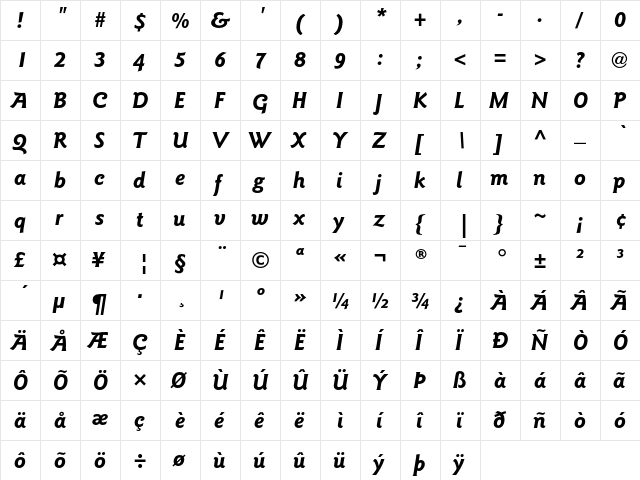
ITC Goudy Sans Bold Italic Font Preview
ITC Goudy Sans Bold Italic
ITC Goudy Sans Bold Italic Font Details
Design Context for ITC Goudy Sans Typeface
ITC Goudy Sans offers clean, dependable letterforms without strong stylistic allegiance, making it a practical choice for designers who need flexibility. Its italic angle brings a sense of urgency and motion to the letterforms. The heavy weight commands attention and anchors typographic hierarchies.
Pro Tip: Use ITC Goudy Sans for emphasis, pull quotes, and subheadings where its slanted energy can add rhythm to the layout.